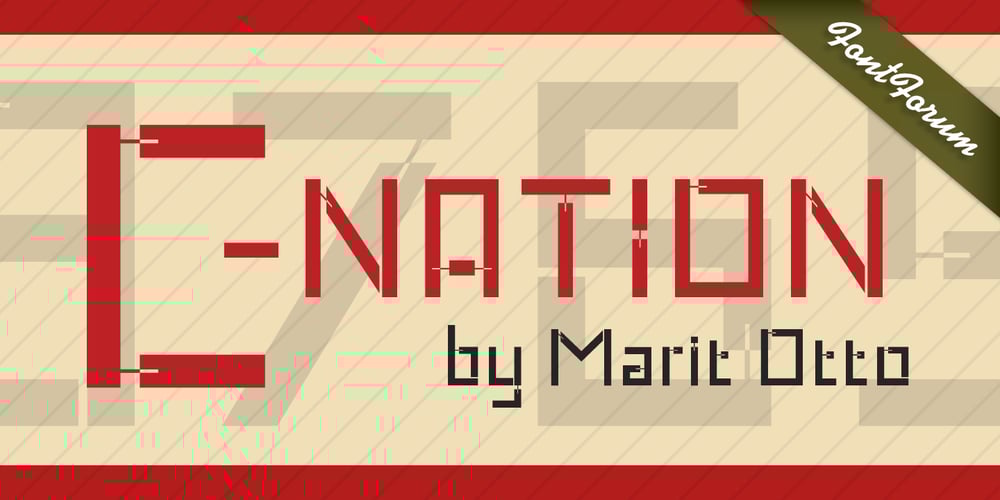
C-Nation Font Family was designed by Marit Angenita Otto and published by URW Type Foundry. C-Nation contains 1 styles and family package options. Marit Otto about C-Nation: The building typeface. Although the 70ties were very liberating and progressive, still girls played mainly with dolls and sweet things and boys with all kinds of challenging stuff. They did all sorts of basic scientific experiments in mini labs and of course built cool things with Meccano building sets. As a girl I was perfectly happy with the toys I had access to. But at the same time I was very curious about all the adventure toys and discoveries my brother did. It also made me wonder why the grown up people thought that our world could be separated so easily by separating our toys in pink and blue sections. At this day of age Meccano is probably hopelessly old fashioned and far to manual. Children of today are fed by fast images and cool animations on screen, they learn, play, communicate and relax in the same space, the digital space. The special feature of Meccano was that even though it was very basic there was the promise you could create anything. It might even contribute to a logical mind. The typeface I designed refers to the Meccano feel. It is a creative typeface. A bit masculine and bold looking perhaps but after the first impression a subtle and refined female touch is revealed. It has links to architecture and associations with metal constructions like ‘The Eiffel Tower’ and (old railway) bridges. I am convinced that we all think of that as very charming man-made objects.